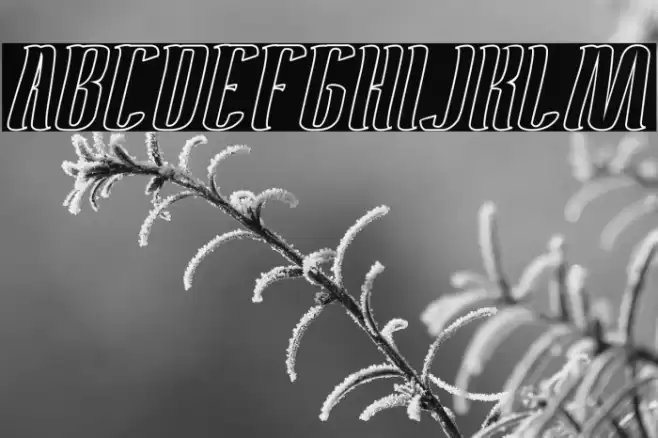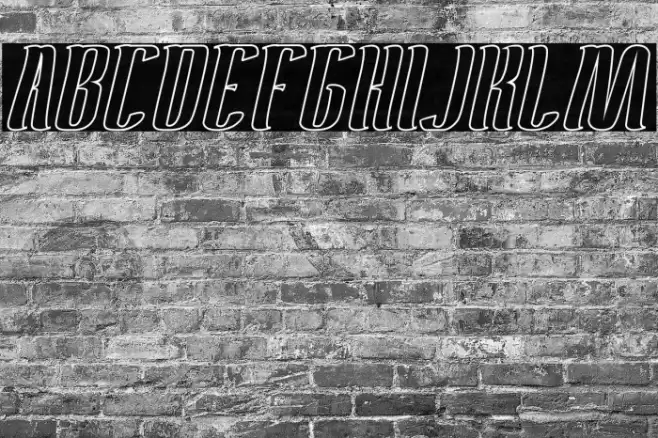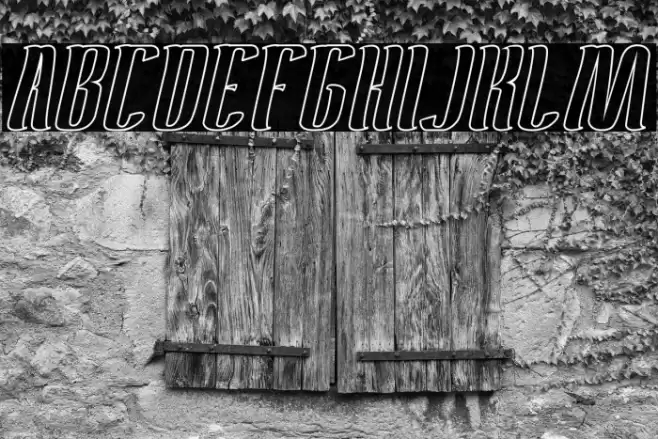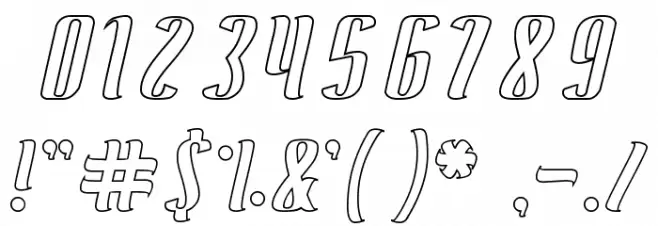
Antelope Run-Hollow Font
Antelope Run-Hollow Description
This font features a unique hollow design with a dynamic, italicized slant that gives it a sense of motion and energy. The characters are elongated with a slight forward tilt, creating a sense of speed and fluidity. The hollow outline adds a modern and edgy feel, making it stand out in any design. The uppercase and lowercase letters maintain a consistent style, with sharp angles and clean lines that enhance readability while maintaining a decorative flair. The numerals and special characters are designed to match the overall aesthetic, ensuring a cohesive look across all text elements.
A dynamic, italicized hollow font with a modern and edgy style from Uncategorized fonts.
- Font: Antelope Run-Hollow
- Proposed Projects: Ideal for sports branding, dynamic posters, modern advertisements, and edgy graphic designs.